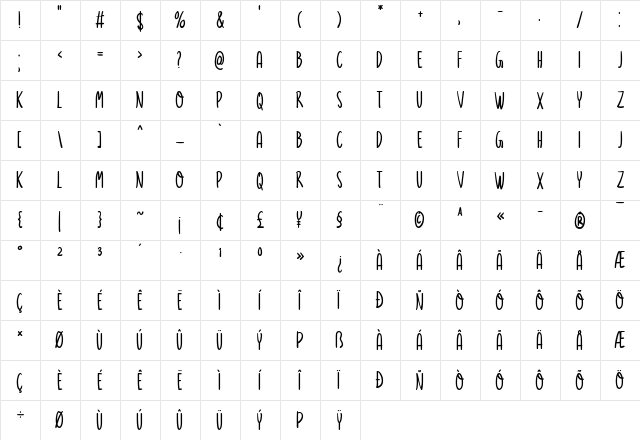
Christmas Merriment Regular
Design Context for Christmas Merriment Typeface
Christmas Merriment offers clean, dependable letterforms without strong stylistic allegiance, making it a practical choice for designers who need flexibility.